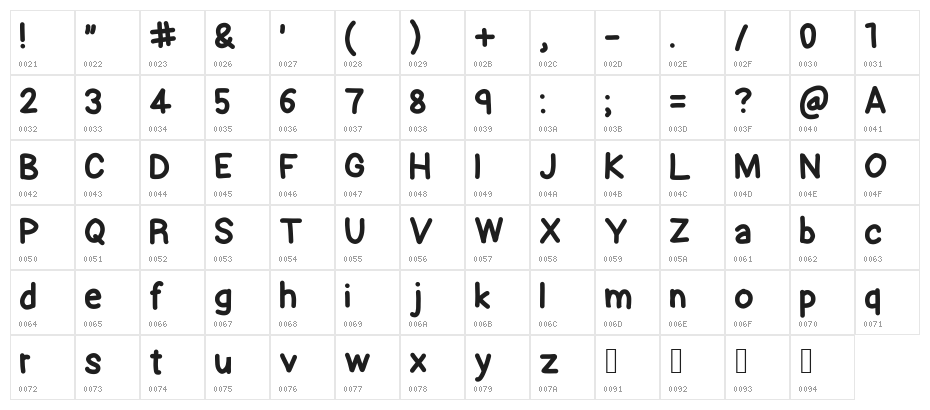
Remember Font
Remember Description
This playful and bold font features rounded, thick strokes that give it a friendly and approachable appearance. The letters are slightly irregular, adding a whimsical touch that makes it ideal for informal and creative projects. The uppercase and lowercase letters maintain a consistent style, with rounded edges and a uniform thickness that ensures readability. Numbers and special characters follow the same design principles, making this font versatile for various uses. Its boldness and unique character make it stand out, perfect for capturing attention.
| Overall Style | Playful |
| Proposed Projects | Ideal for children's books, playful branding, posters, and creative projects. |